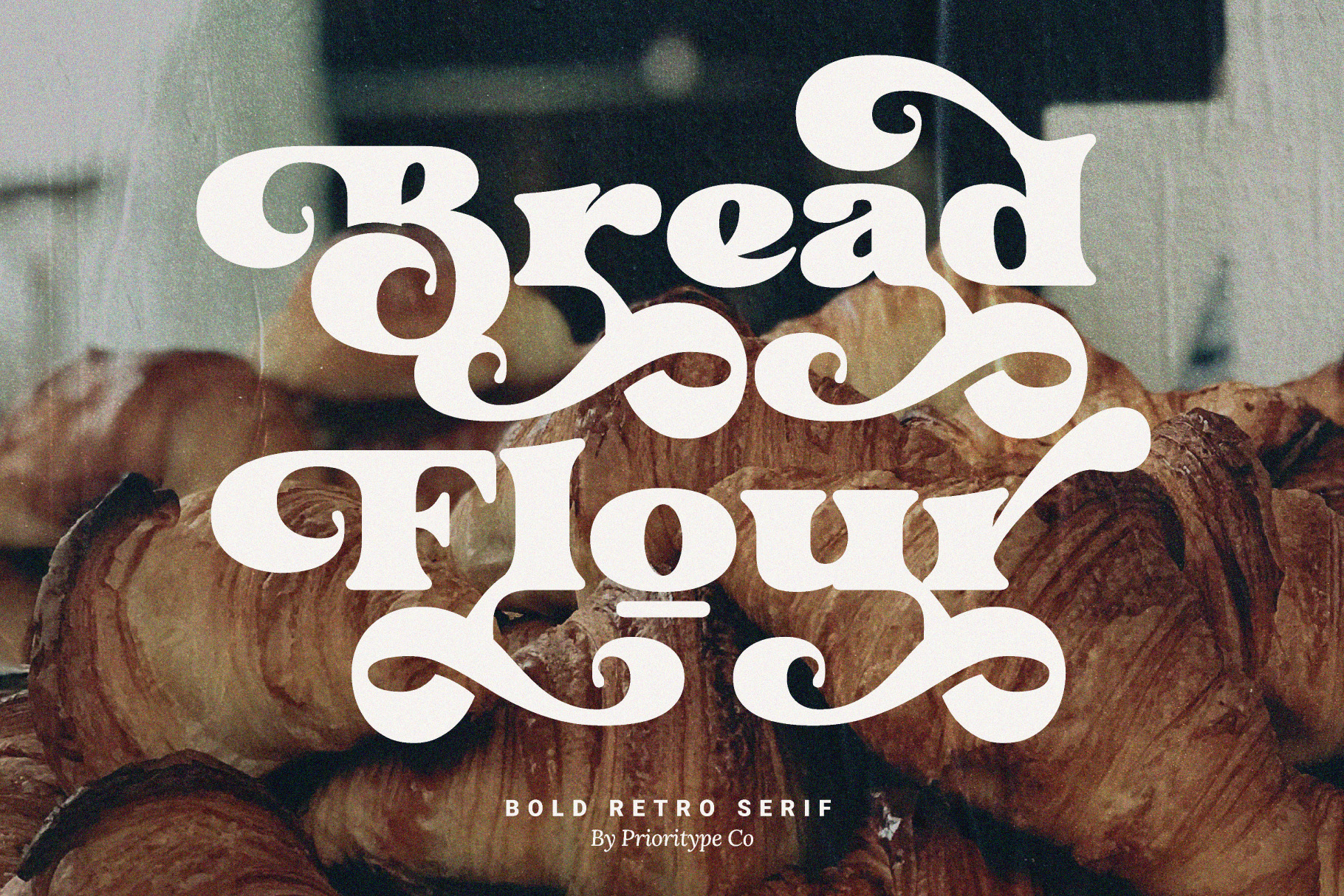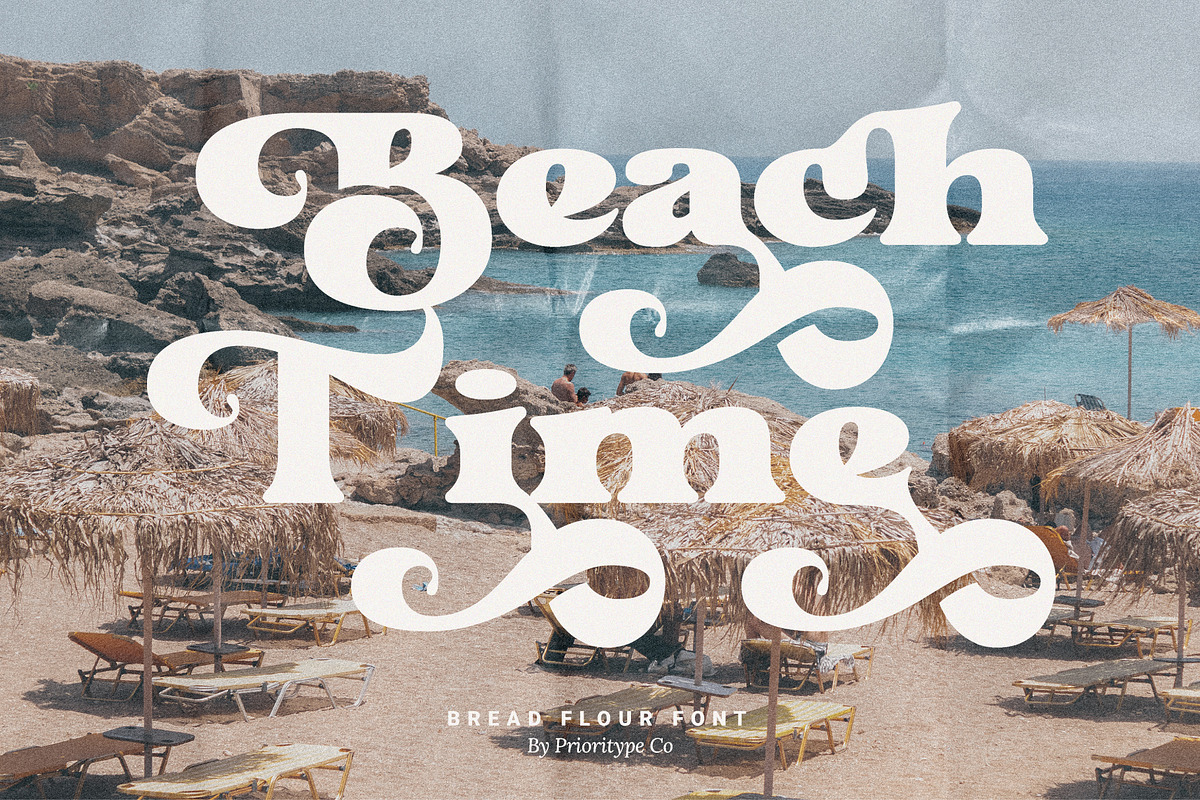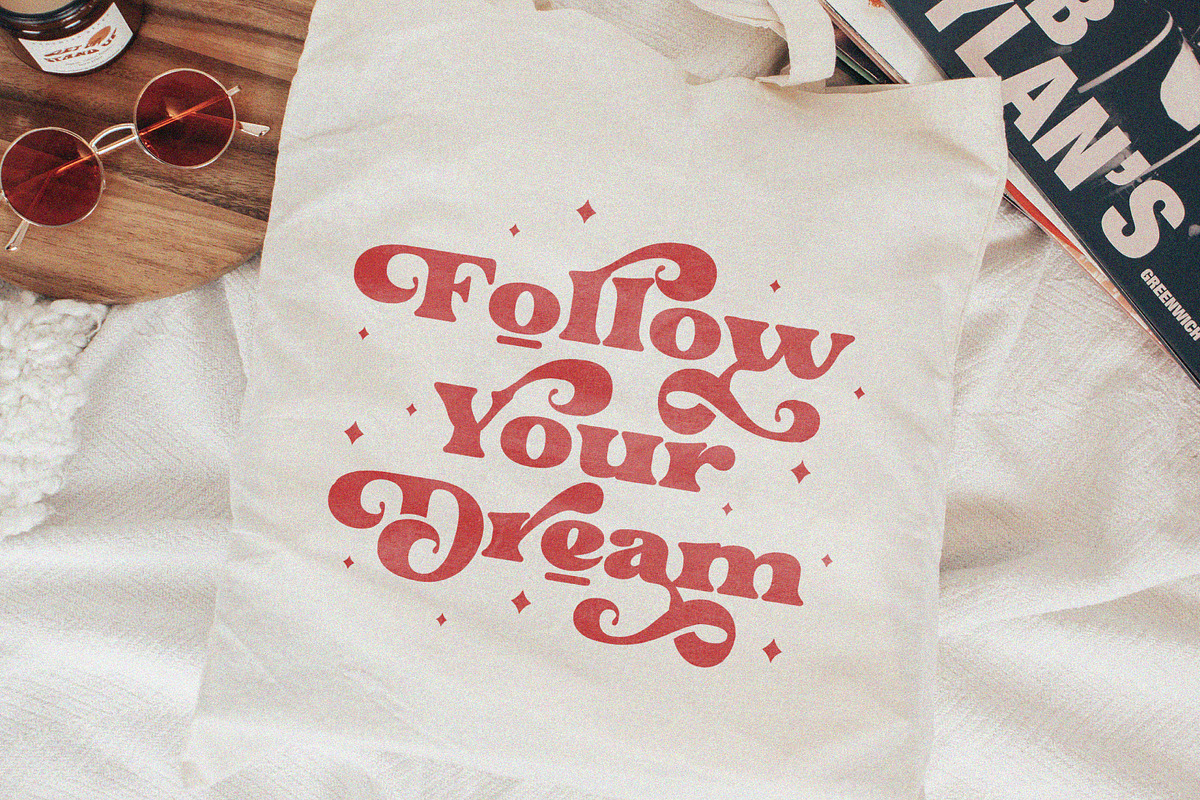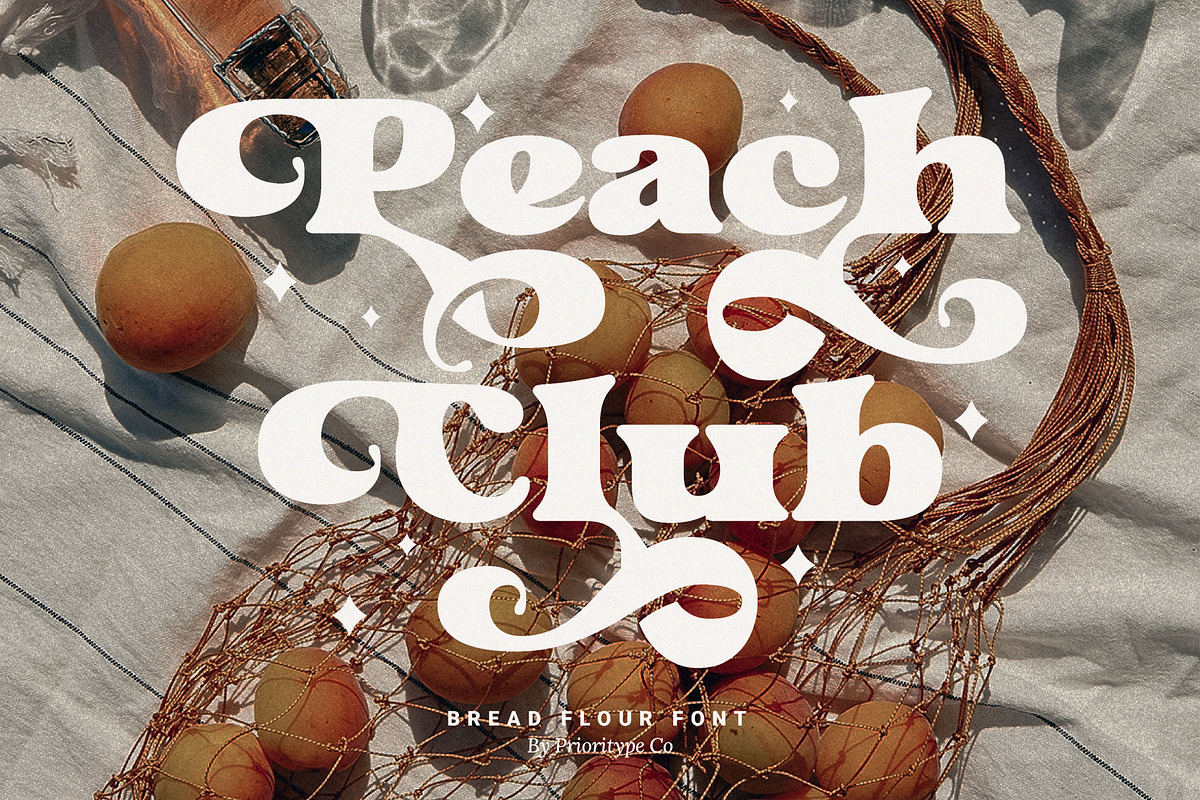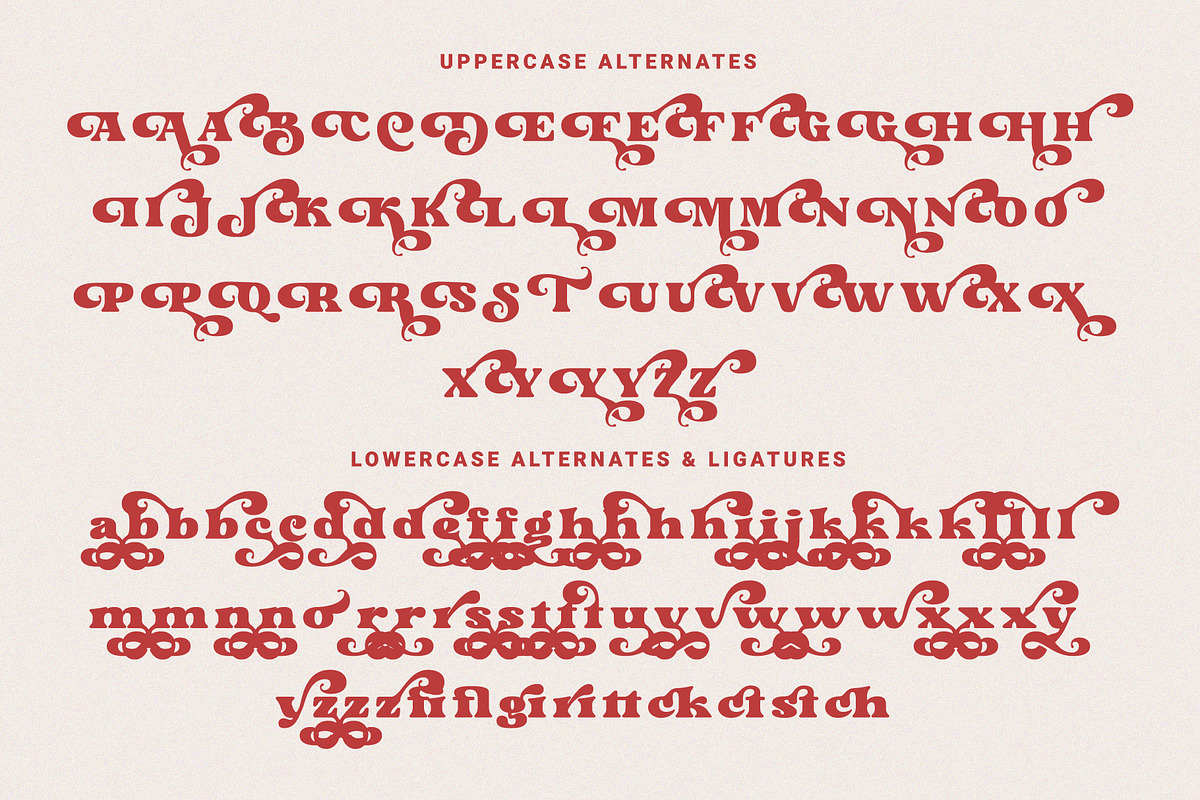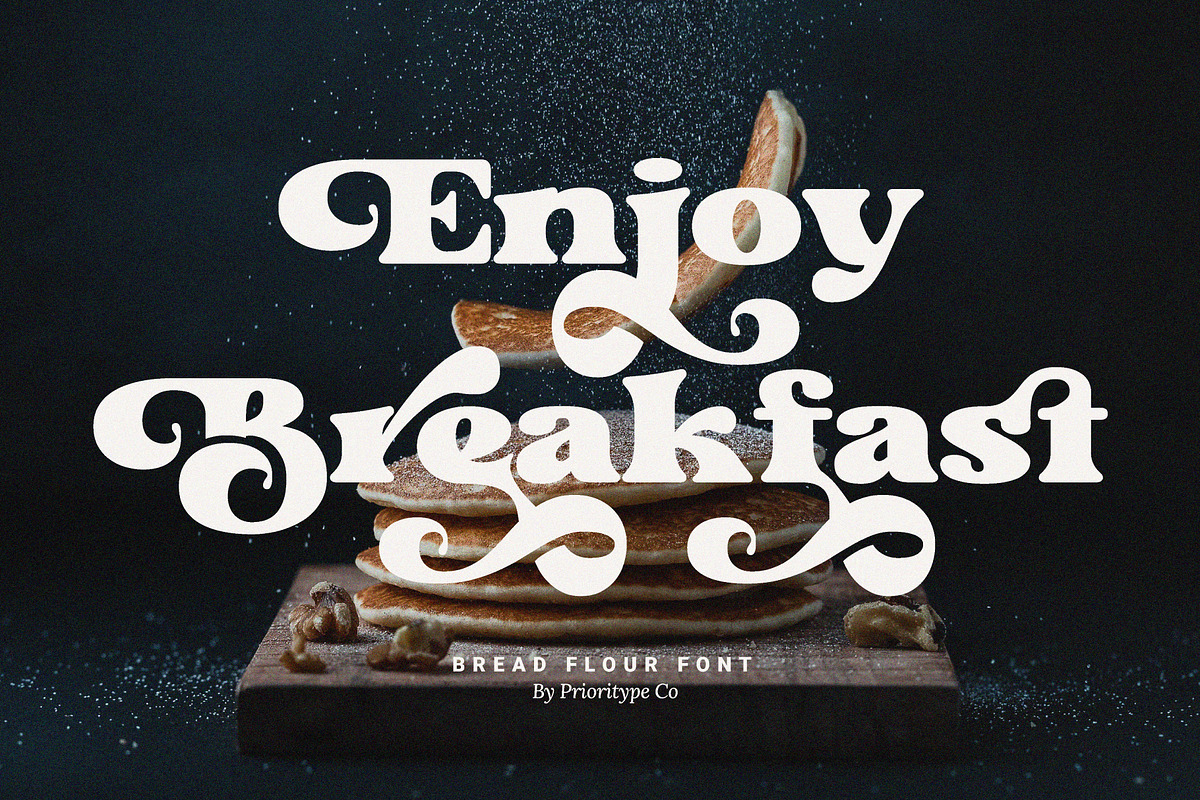
Bread Flour - Bold Retro Serif Font
A fat serif font with a lingering retro feel. Equipped with stunning character alternatives to make your design more striking. Great for headlines, branding, logos, merchandise and so on. Type and type now to pour your creative ideas!
- Features: Uppercase, Lowercase, Numeral, Punctuation, Multilingual, Alternates, Ligatures & PUA Encoded.
- Multilingual contained: Afrikaans, Albanian, Asu, Basque, Bemba, Bena, Breton, Catalan, Chiga, Cornish, Danish, Dutch, English, Estonian, Filipino, Finnish, French, Friulian, Galician, German, Gusii, Indonesian, Irish, Italian, Kabuverdianu, Kalenjin, Kinyarwanda, Luo, Luxembourgish, Luyia, Machame, Makhuwa-Meetto, Makonde, Malagasy, Manx, Morisyen, North Ndebele, Norwegian Bokmål, Norwegian Nynorsk, Nyankole, Oromo, Portuguese, Quechua, Romansh, Rombo, Rundi, Rwa, Samburu, Sango, Sangu, Scottish Gaelic, Sena, Shambala, Shona, Soga, Somali, Spanish, Swahili, Swedish, Swiss German, Taita, Teso, Uzbek (Latin), Volapük, Vunjo, Zulu.